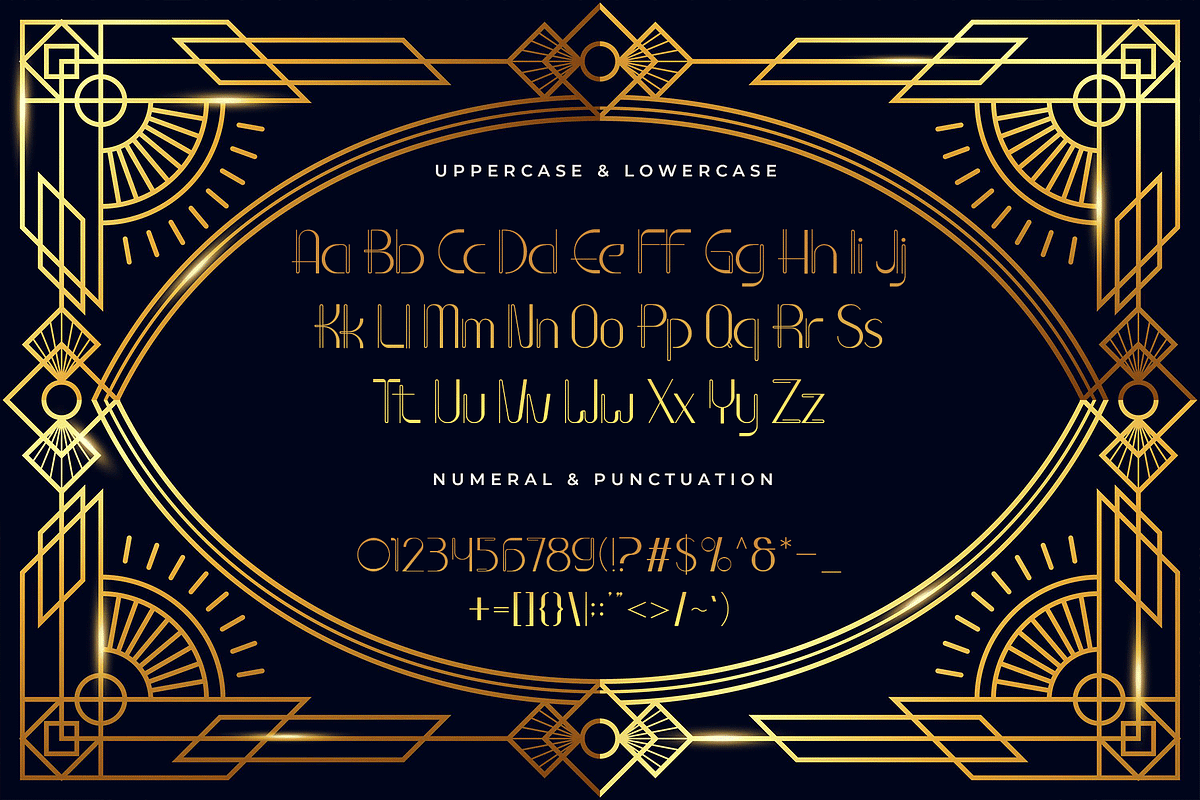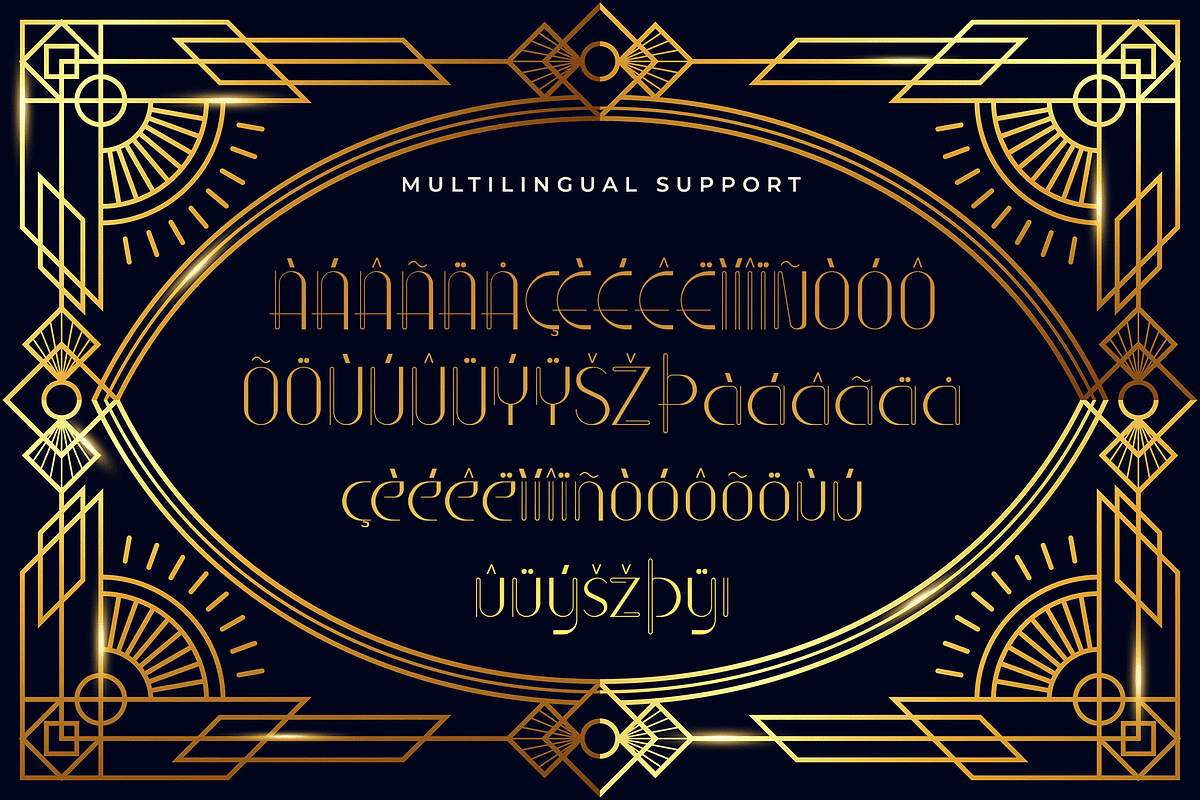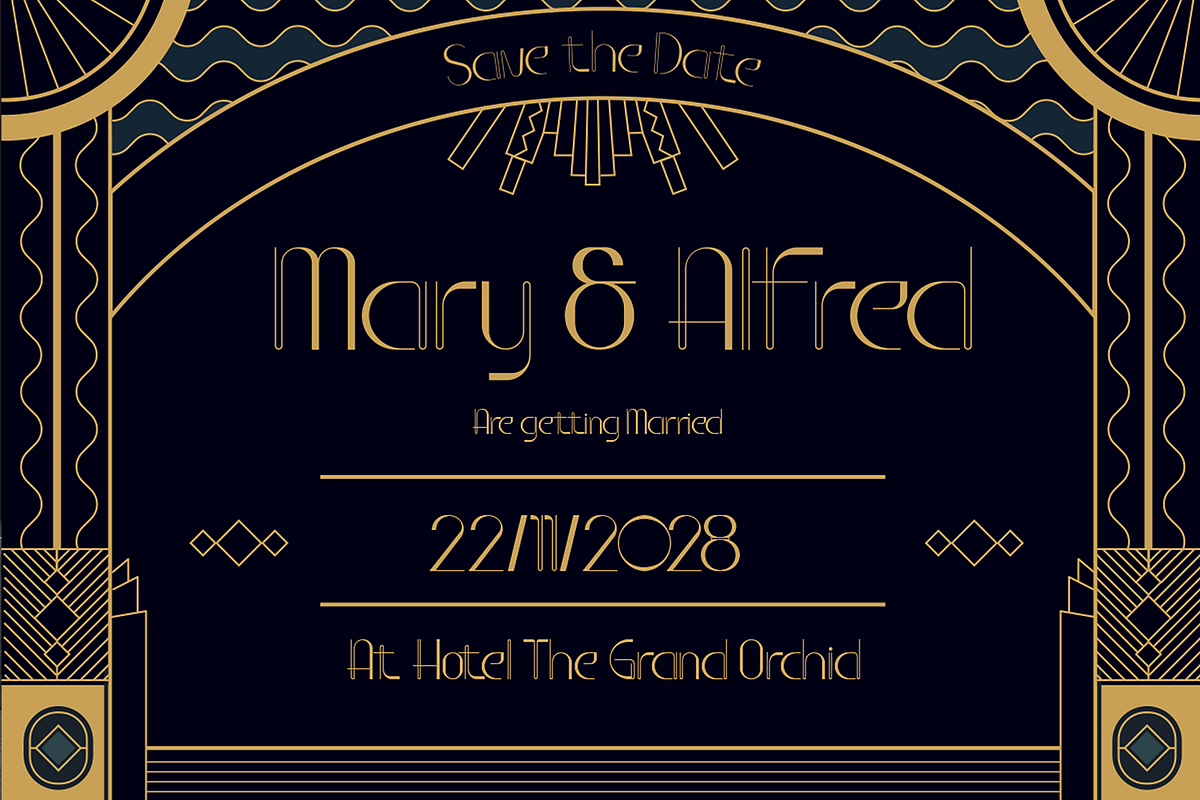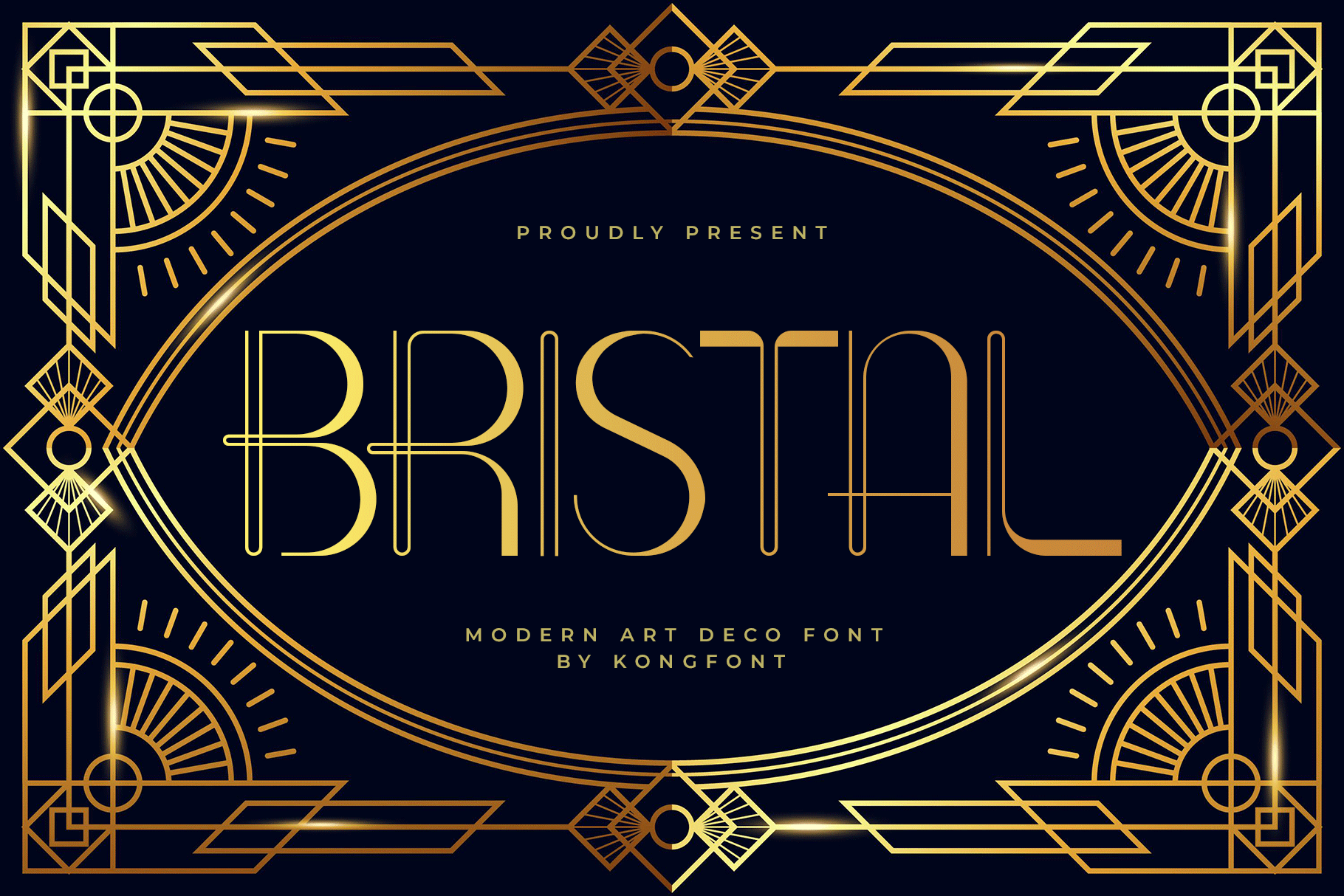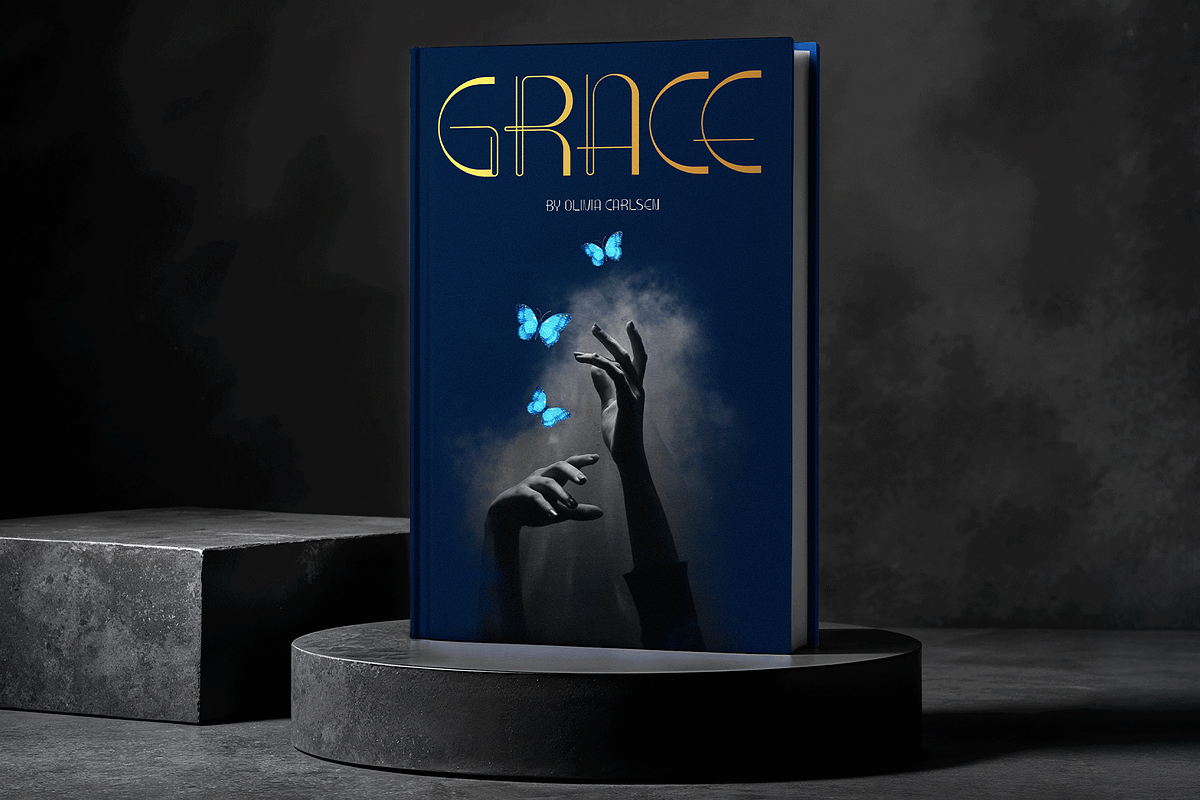
Bristal - Modern Art Deco Font
Introducing Bristal, a modern Art Deco font designed to bring refined luxury and bold geometric style into your creative projects. Inspired by the elegance of 1920s design yet refined with a contemporary twist, Bristal offers a perfect balance between decorative charm and modern readability.
Crafted with precision, Bristal includes uppercase letters, numerals, punctuation, and multilingual support, ensuring versatility for global designers and creative professionals. Whether your project is minimal or extravagant, Bristal adds a layer of elegance that stands out effortlessly.